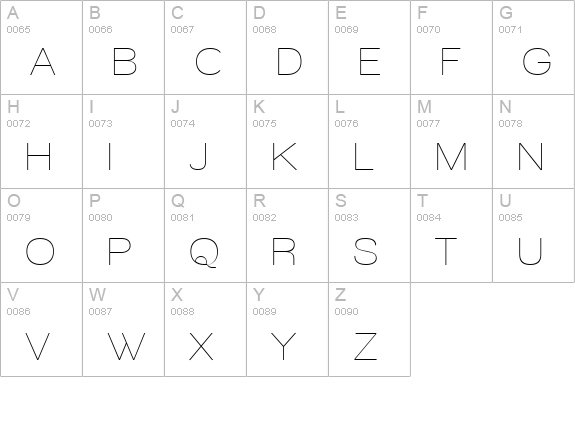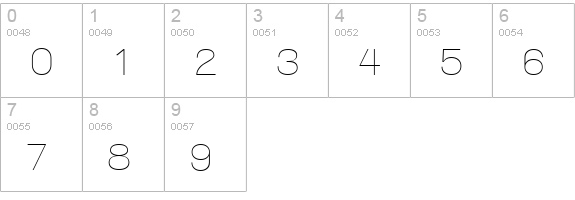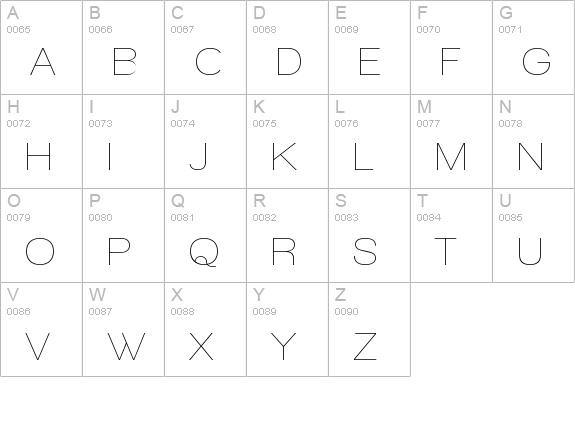
Walkway Font Details
Walkway font is a modern and stylish typeface that exudes sophistication and elegance. Its clean lines and sharp edges make it perfect for a wide range of design projects, from branding to signage to website headers. The font's sleek and contemporary look will add a touch of class to any project. One of the best things about Walkway font is that it is completely free to download. You can easily access this versatile font at FontsMarket.com without any cost, making it a fantastic option for designers on a budget or anyone looking to add a touch of class to their projects without breaking the bank. With its timeless design and professional appeal, Walkway font is sure to become a go-to choice for all your design needs. Download it today and elevate your projects with this stunning, free typeface.